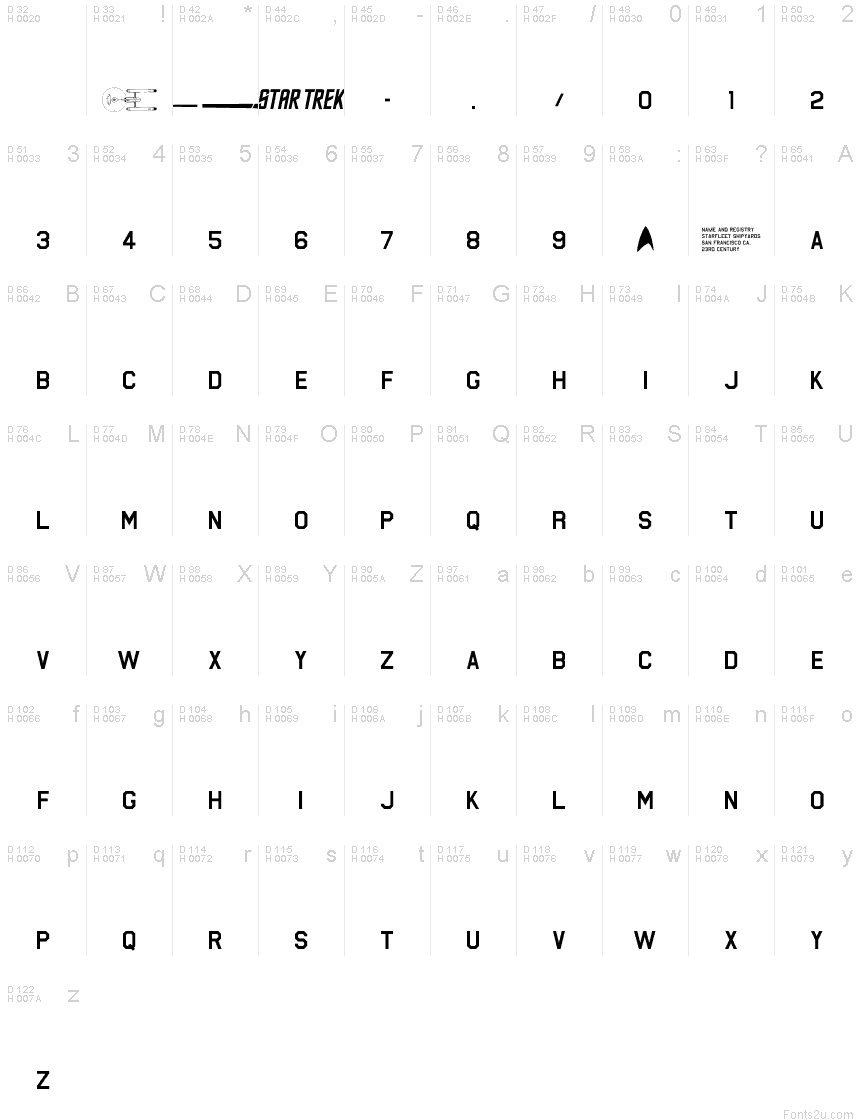
Federation Starfleet Hull 23rd
Based on the Star Trek The Original Series Hull Font on the Starship Enterprise.
Steve Ferrera
Star Trek® Pilot & Series(Starship Name & Registry)